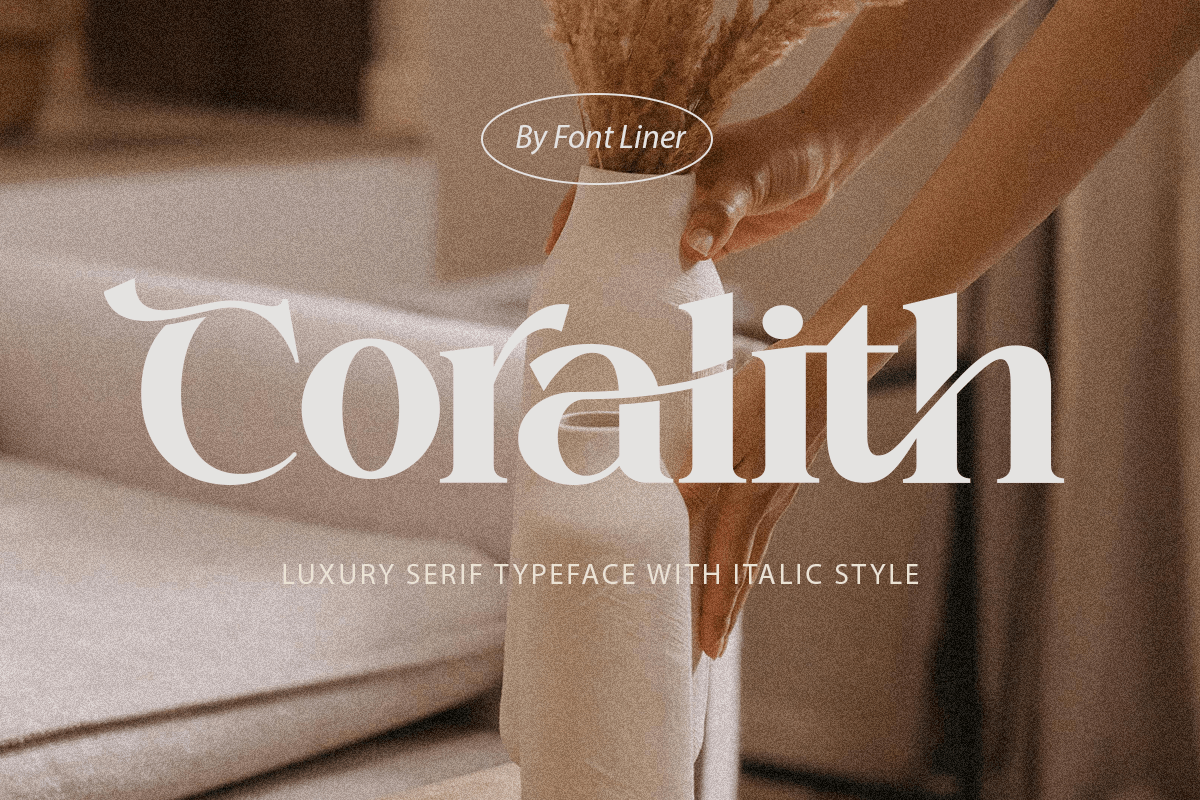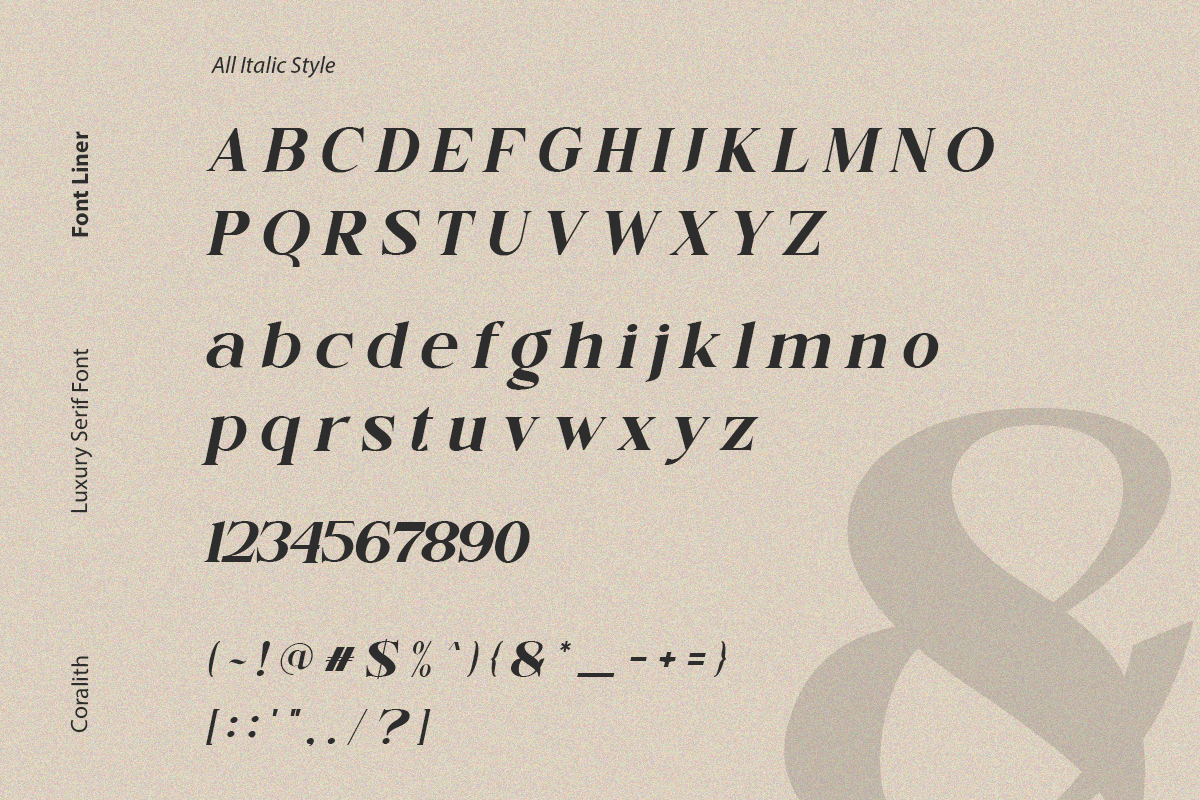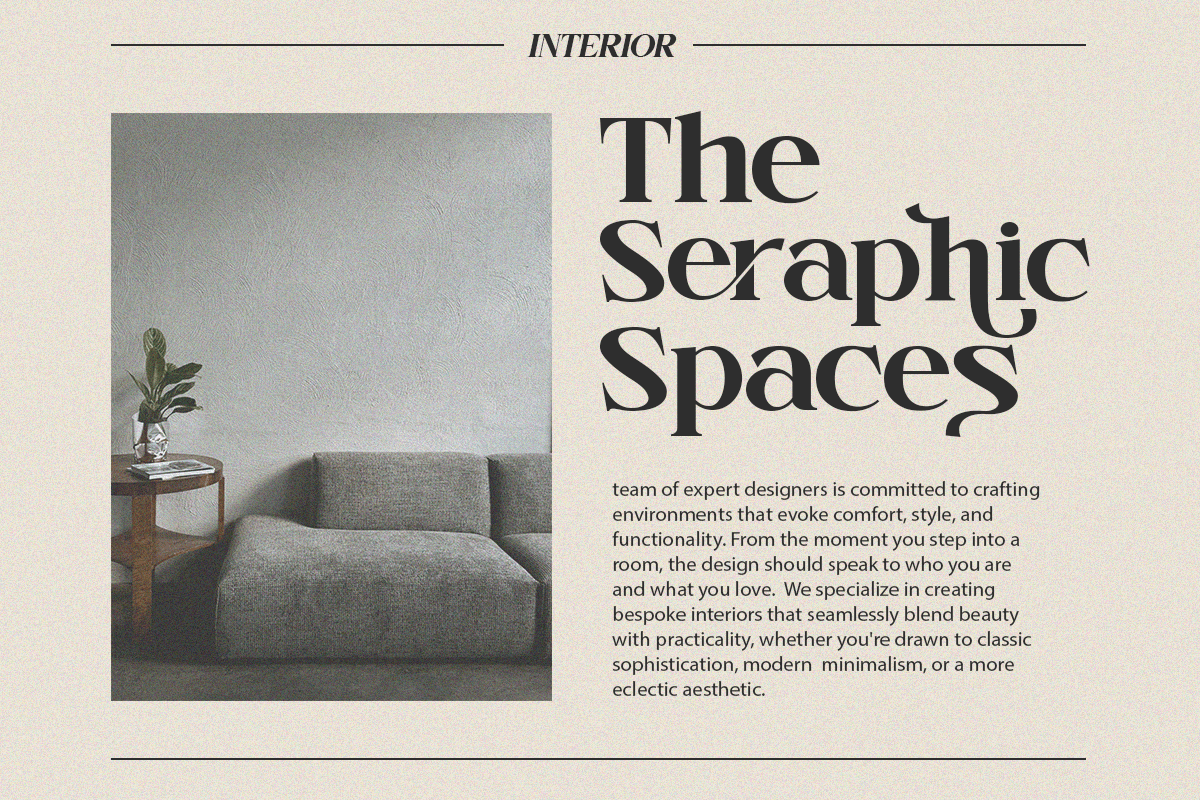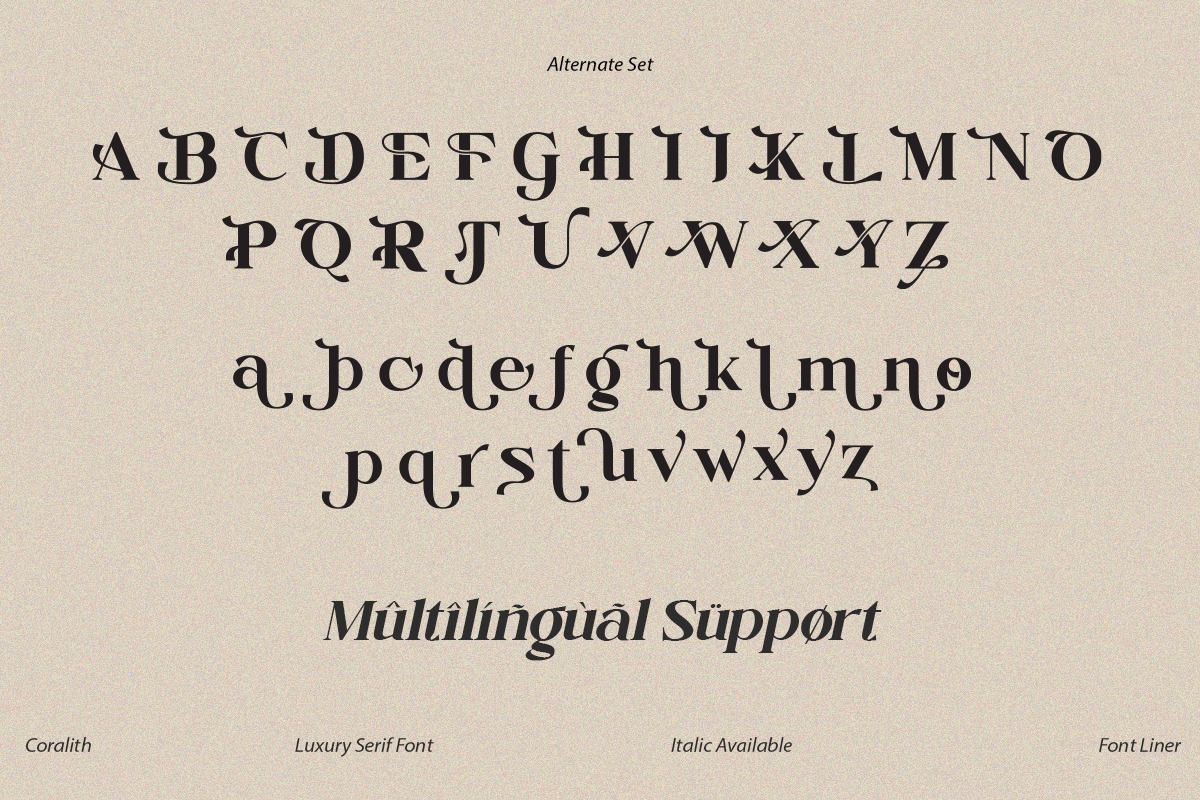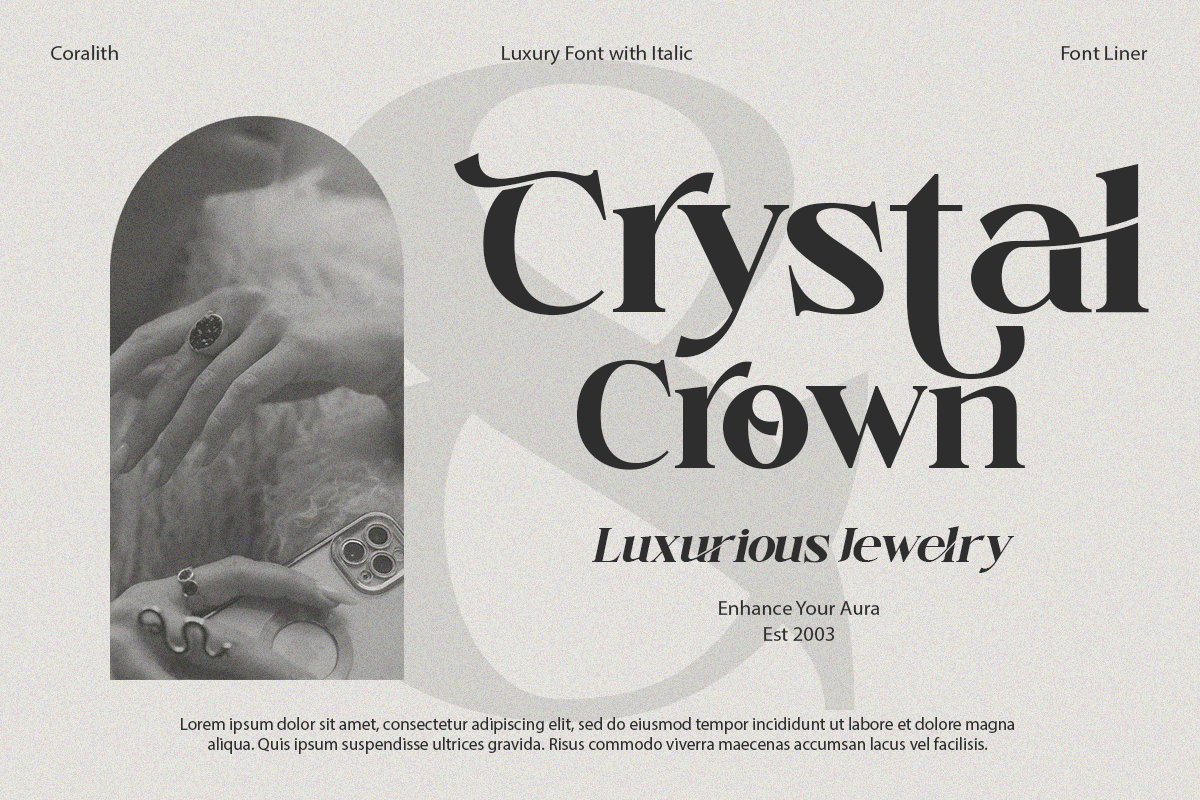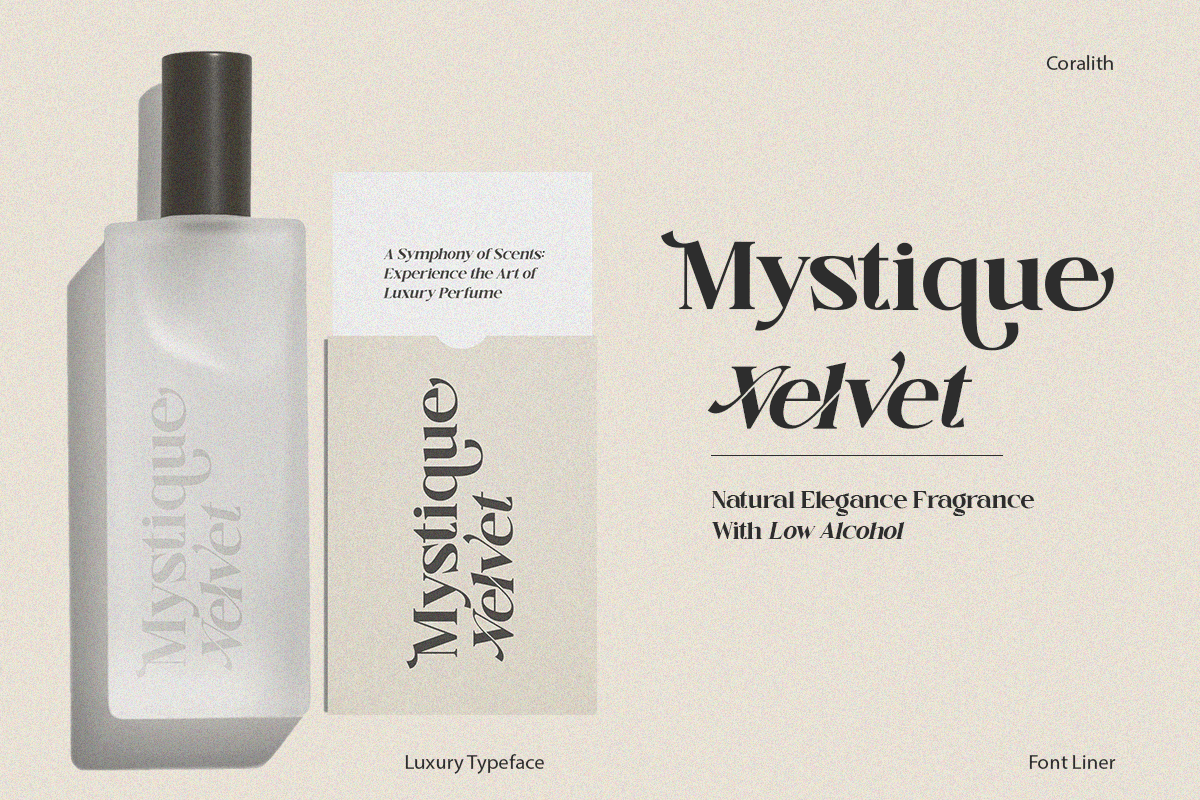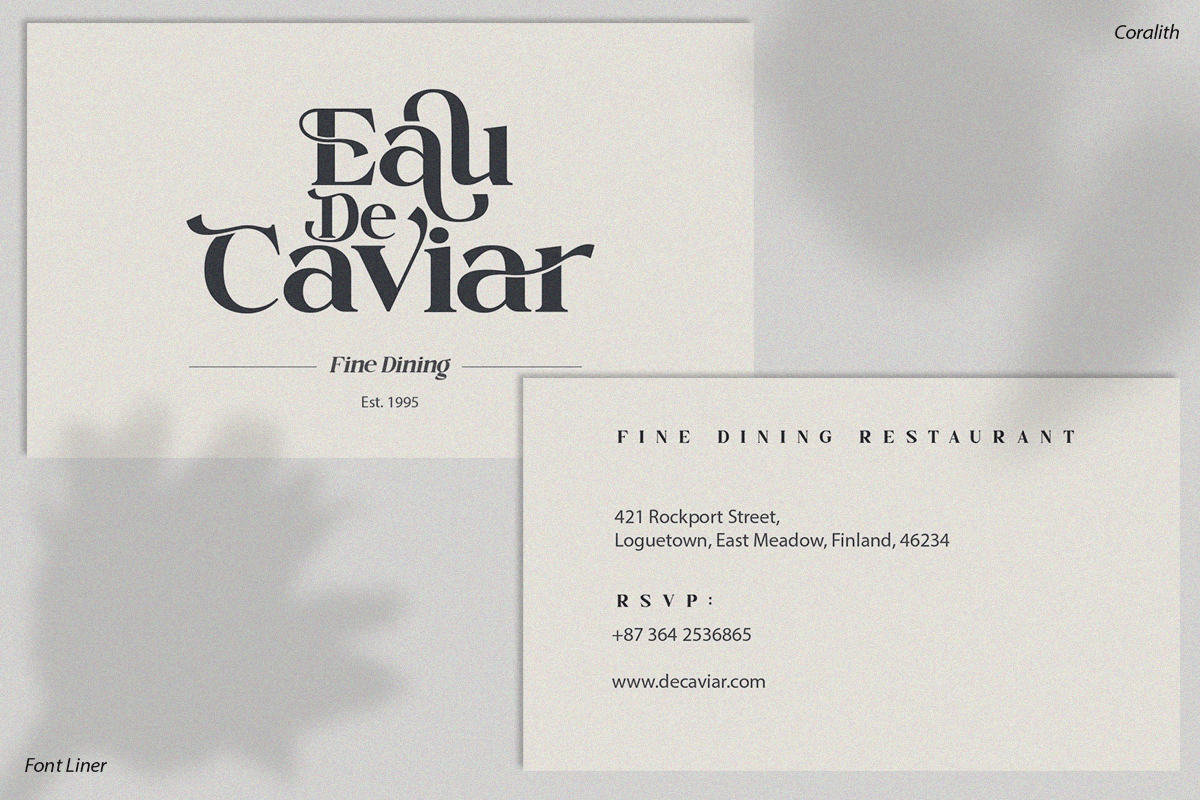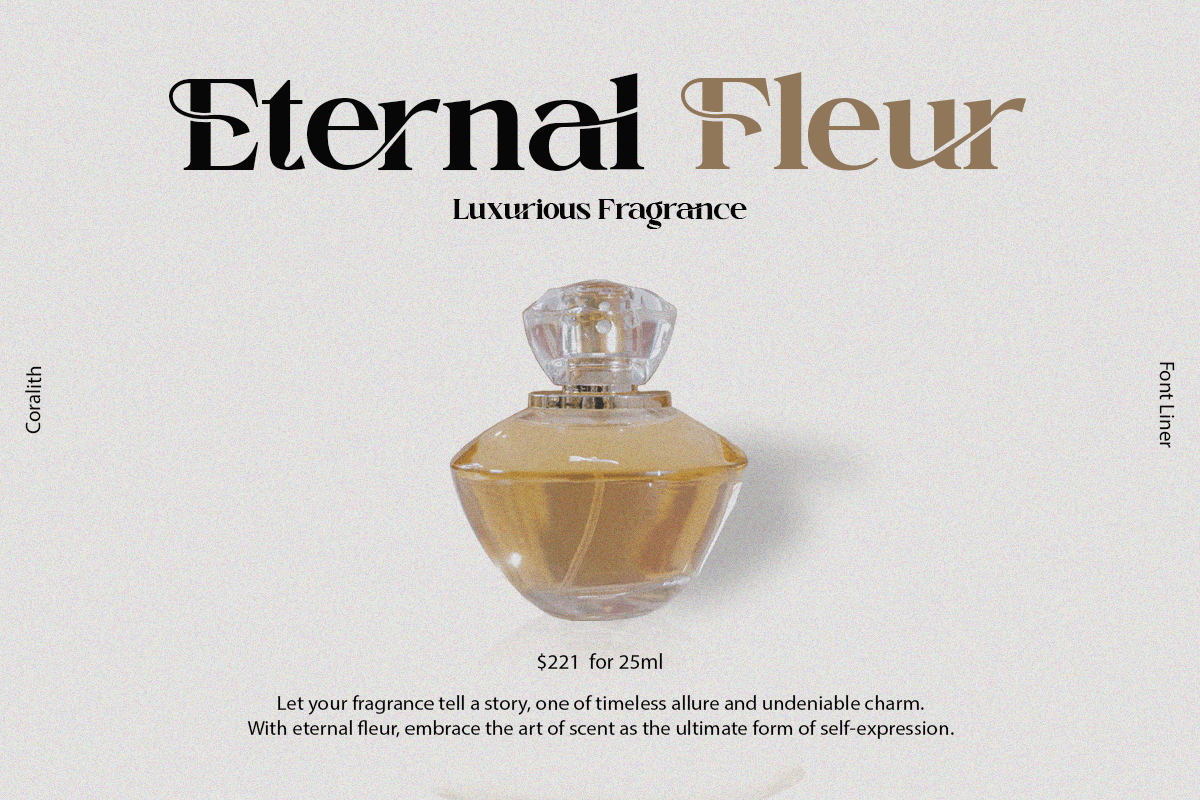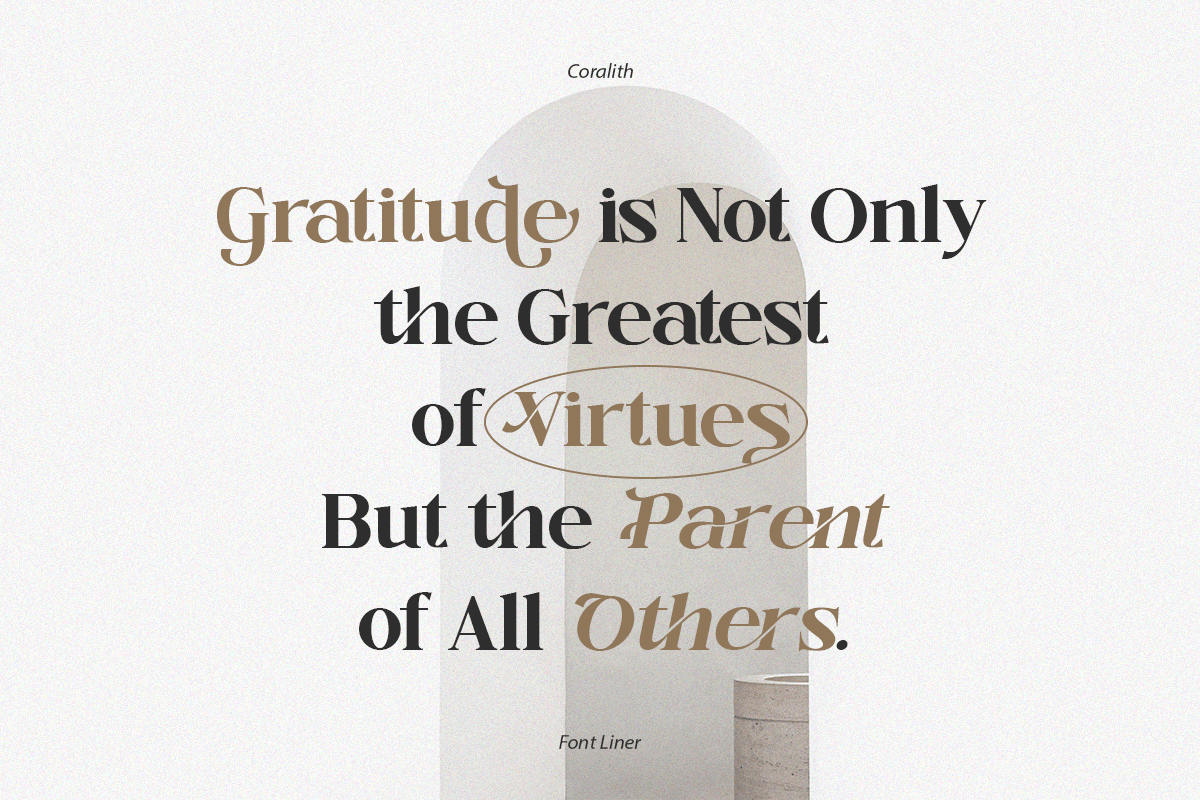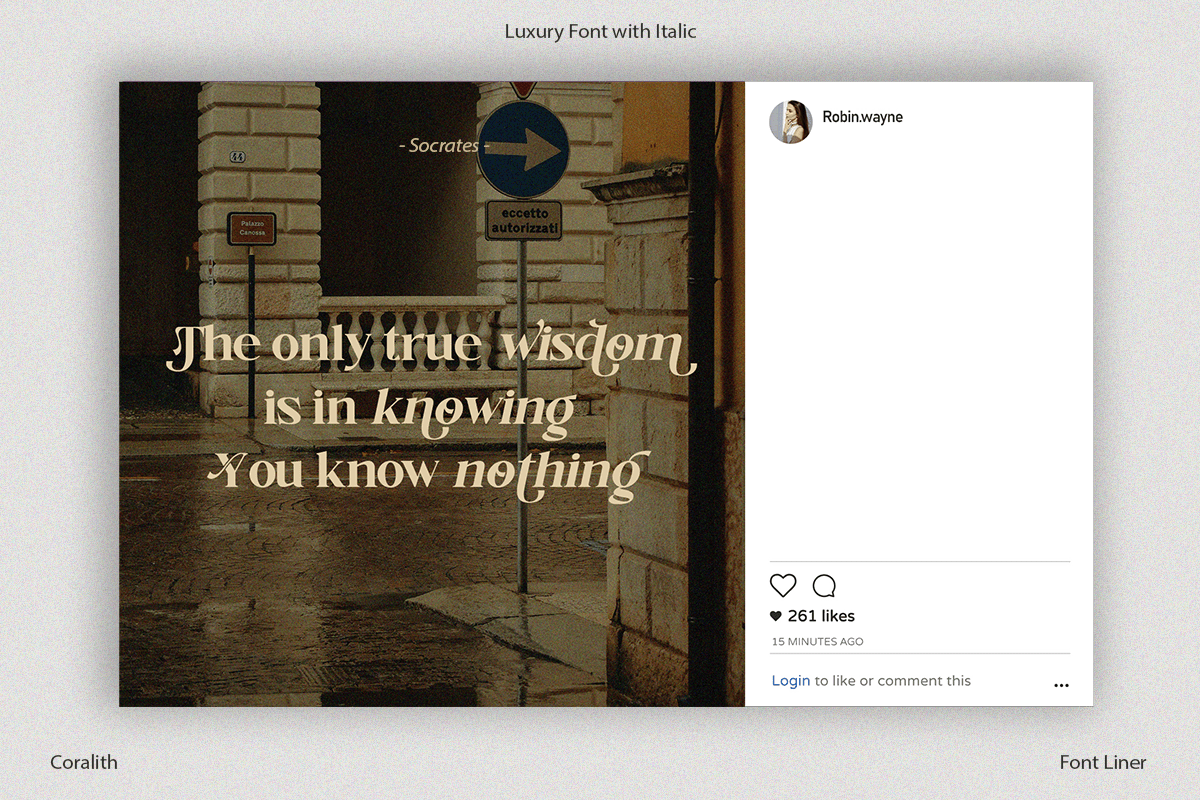
Coralith – Luxury Serif Font
Coralith is a luxury serif font that blends timeless elegance with contemporary refinement. Featuring graceful high-contrast letterforms, artistic alternates, and sophisticated ligatures, this typeface creates a premium visual identity for brands that value beauty, exclusivity, and modern aesthetics. Every character is carefully crafted to deliver an elegant balance between classic serif tradition and fashionable editorial style.
Perfect for luxury branding, fashion labels, jewelry, cosmetics, perfumes, editorials, magazines, interior design, wedding stationery, social media, websites, and premium packaging, Coralith transforms ordinary typography into a refined visual experience. Whether you’re designing logos, product packaging, advertisements, or elegant headlines, this font provides exceptional versatility for both print and digital applications.
Coralith includes uppercase and lowercase characters, stylish alternates, ligatures, multilingual support, numerals, punctuation, and symbols, allowing designers to create distinctive typography with ease. From boutique branding and luxury product presentations to modern editorial layouts and sophisticated marketing campaigns, Coralith is the perfect serif font for creating elegant, memorable, and high-end designs.
– Stylistic alternates
– Uppercase, Lowercase & Ligatures